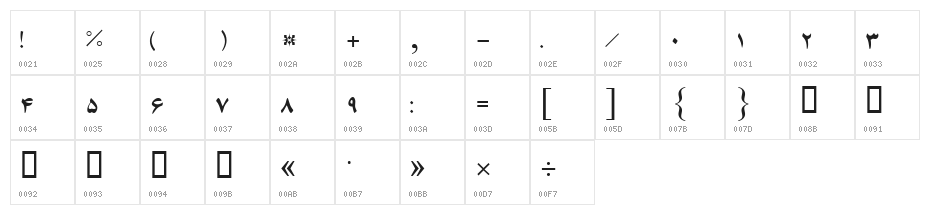
Ferdawsi Font
Ferdawsi Description
This font features a unique and artistic design, characterized by its flowing and cursive style. The characters are elegantly crafted with smooth curves and a handwritten appearance, giving it a personal and expressive feel. The font includes a full set of uppercase and lowercase letters, numerals, and a variety of special characters. Its distinctive style makes it suitable for creative projects where a touch of elegance and individuality is desired.
گالری فانت فارسی پژوهش آريانا - only compatible with Farsi and Arabic
| Use Case | Logos, Invitations, Artistic projects |
| Proposed Projects | Ideal for invitations, greeting cards, personal branding, and artistic projects. |